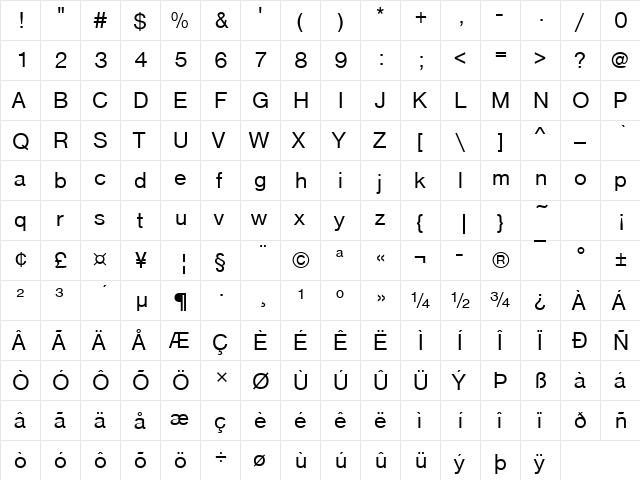
Nimbus Sans Becker D Regular
Design Context for Nimbus Sans Becker D Typeface
Nimbus Sans Becker D offers clean, dependable letterforms without strong stylistic allegiance, making it a practical choice for designers who need flexibility.